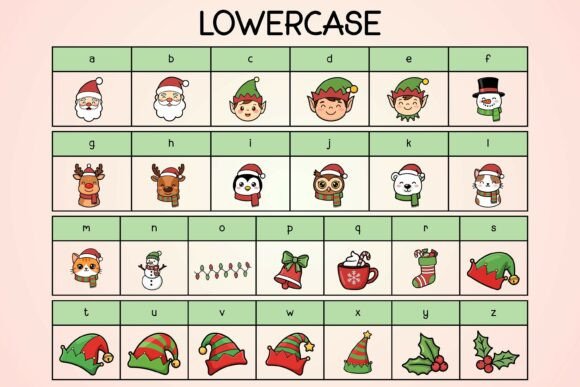
Christmas Color Dingbats Font
Meet Christmas Doodle, a Dingbats font intricately designed to inject the Christmas into your creations.
This endearingly crafted, color-rich, Christmas-themed font is your secret ingredient to transform ordinary into extraordinary effortlessly. From crafting gorgeous invitations to burst onto the scene with striking social media posts, from designing charming greeting cards to adding a flavor of creativity to your projects, Christmas color Dingbats is versatile. Every stroke of this font noticeably amplifies the visual allure of your endeavors, making them stand out. Experience the whiff of Christmas with every letter of the Christmas Color Dingbats font.